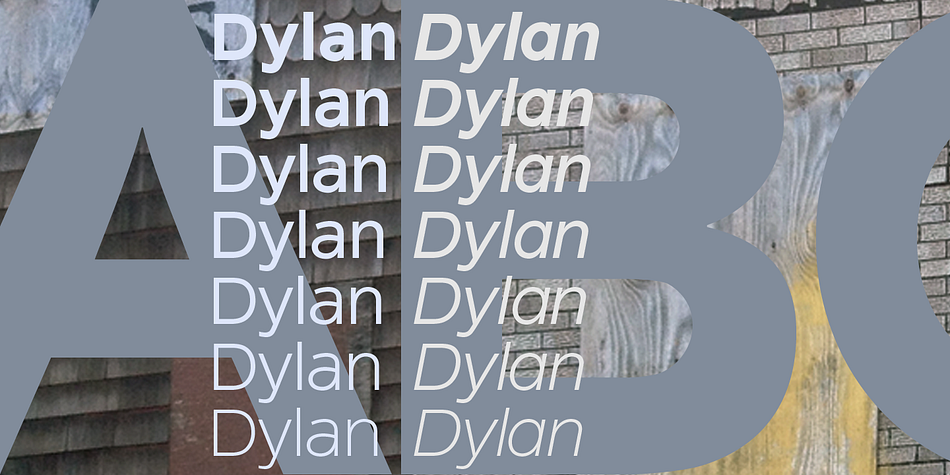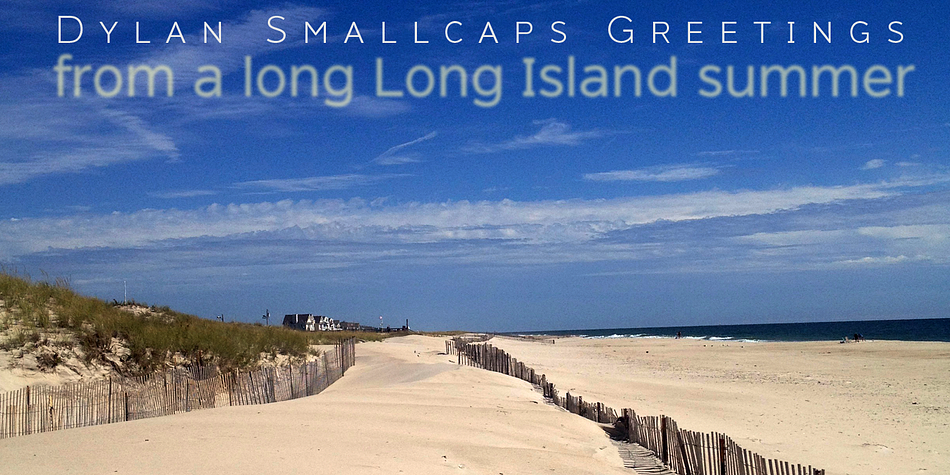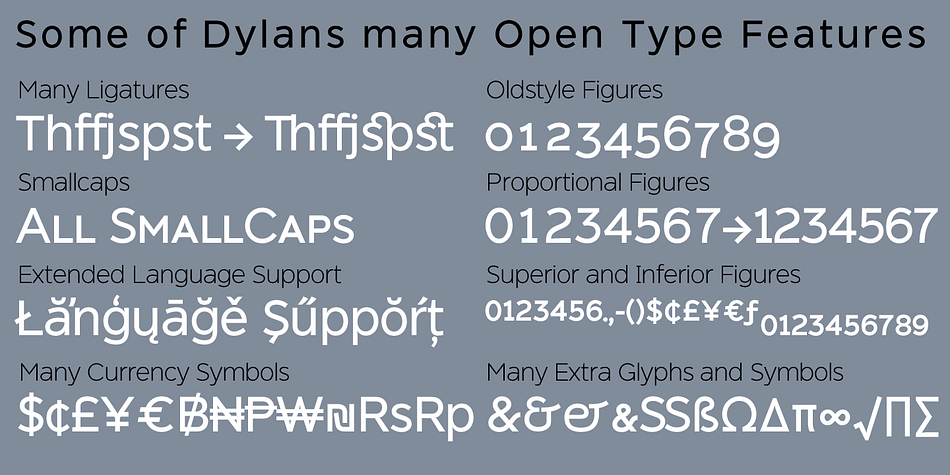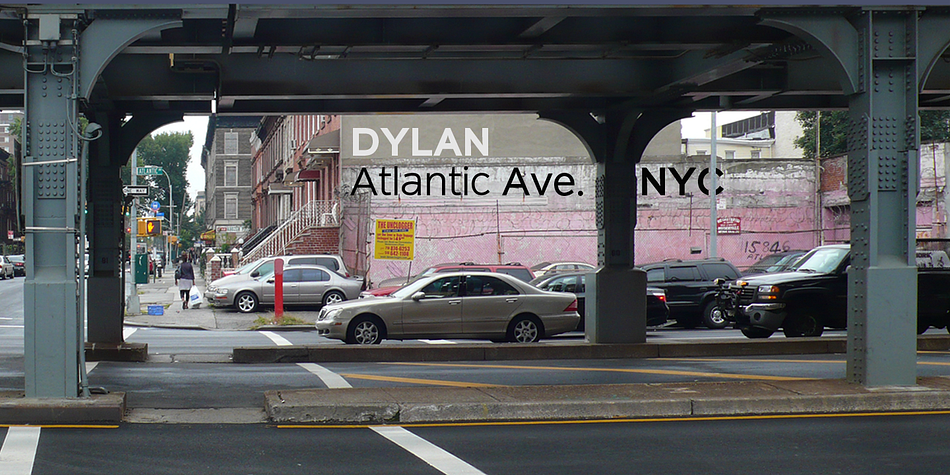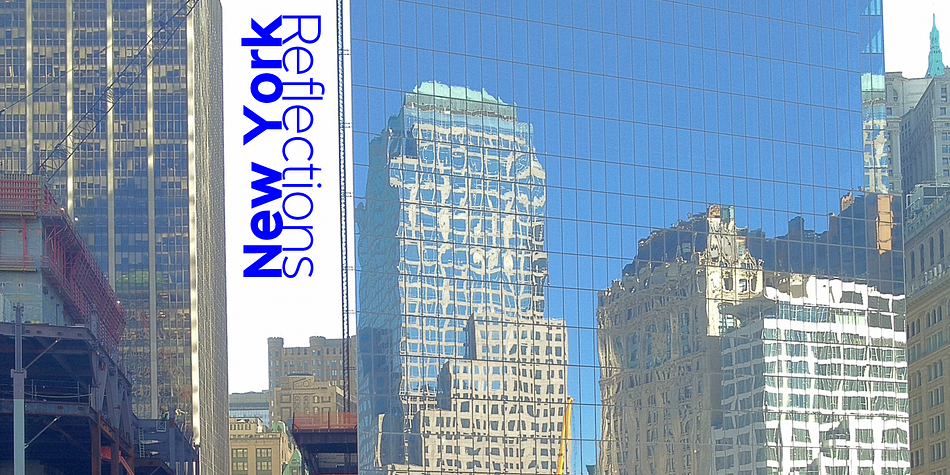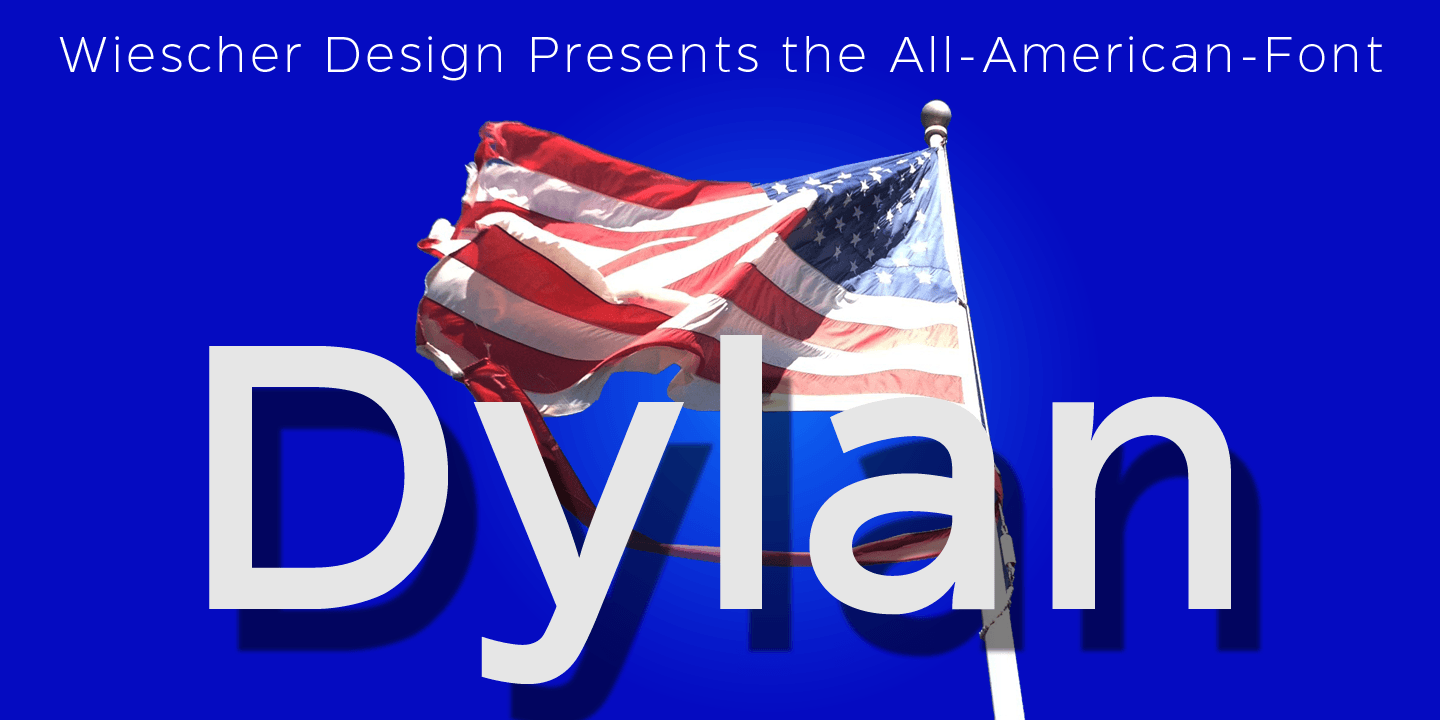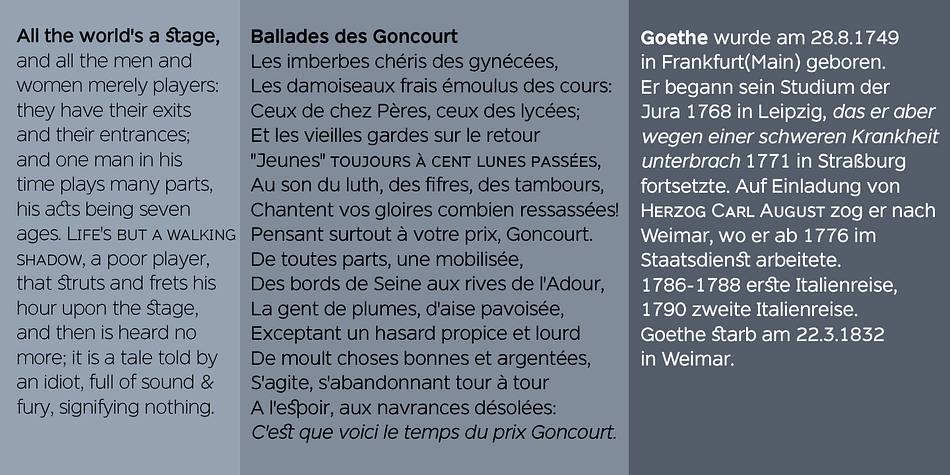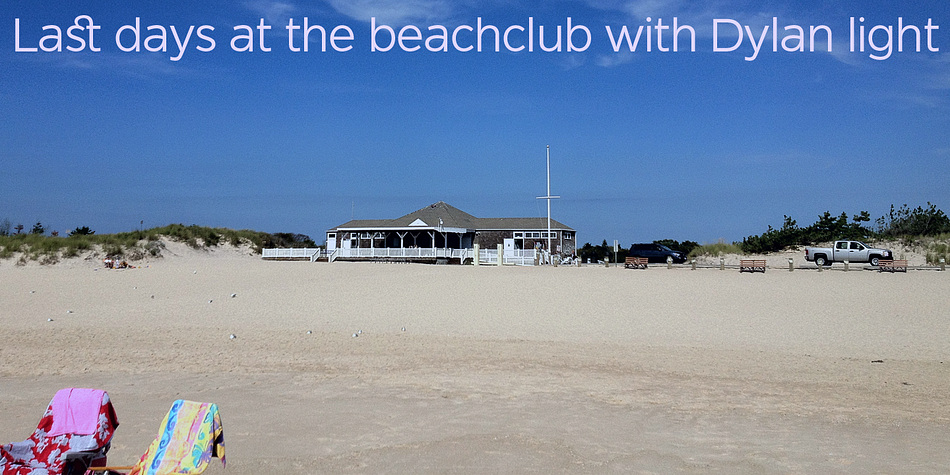
Dylan is a sans serif font family. This typeface has fourteen styles and was published by Wiescher-Design.
Dylan is a Sans typeface in the best American tradition. In order to keep corners open and to make the font more readable in small sizes it has deep cuts where curves join straights. I designed 7 finely tuned weights with fitting italic sets. The fonts includes full smallcaps, language support for most European languages plus Turkish, many fractions, nominator and denominators, Greek mathematical signs and many currency symbols. It is a versatile font that is well suited for many occasions, even for signage.